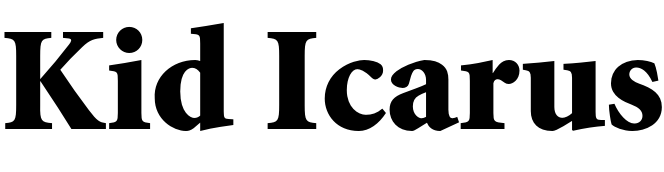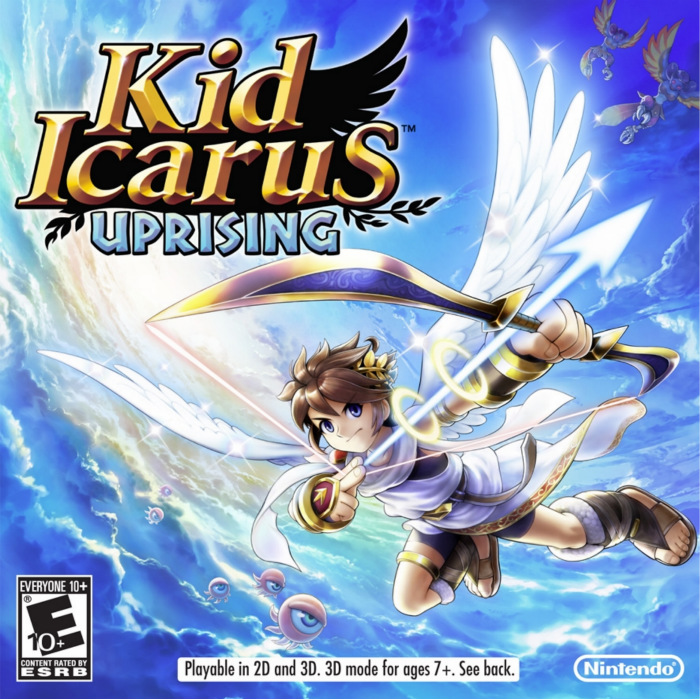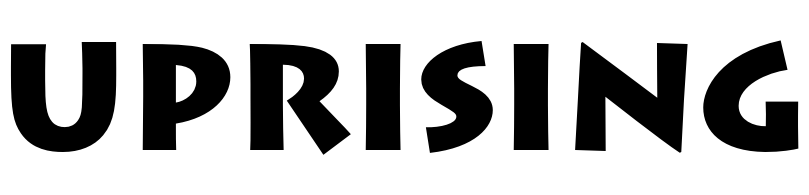
Kid Icarus Uprising Font
Fonts in UseKid Icarus: Uprising, is a 2012 third-person shooter game for the Nintendo 3DS, featuring the angelic protagonist Pit battling against mythological enemies. The game combines action-packed gameplay with a humorous storyline and diverse multiplayer modes.
The game's logo incorporates two distinct fonts: the "Kid Icarus" text resembles the slanted variant of Minion Black, while the font used for "UPRISING" appears to be Lithos Black, a typeface created by Carol Twombly.